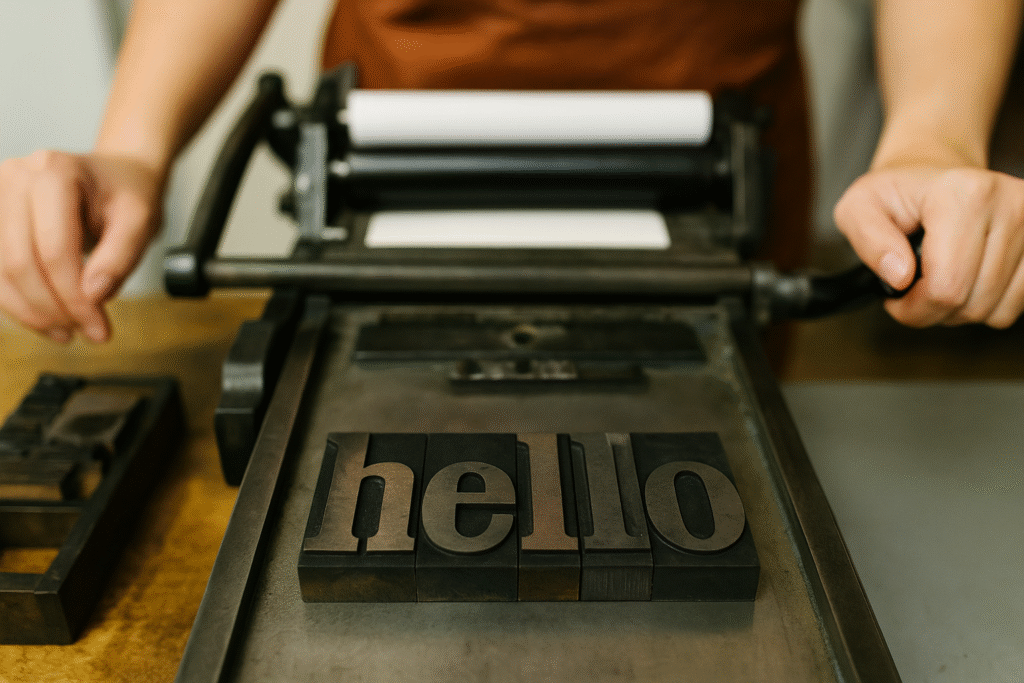
The Art of Letterpress: Crafting with Pressure and Precision”
If you thought typography and DIY crafts only danced together at the occasional sign-making soirée, think again. Today, we’re diving into one of the most visually stunning and tactilely satisfying techniques ever to grace the printed page: letterpress printing. This centuries-old method is equal parts art, engineering, and oddly therapeutic hand-pressing—perfect for crafters who want their words to literally leave a lasting impression.
What is Letterpress?
Let’s set the scene: It’s the 1400s, and Johannes Gutenberg has just revolutionized the world with movable type. Fast forward a few centuries, and his legacy is living its best life in your home craft studio.
Letterpress printing involves inking a raised surface—typically metal or wood type—and pressing it firmly into paper. Unlike modern digital prints that sit on top of the page, letterpress leaves a physical impression you can see and feel. It’s essentially the artisanal sourdough of the typography world.
Why It’s Perfect for DIY Crafters
Letterpress is the ideal playground for crafty typography lovers. Whether you’re designing wedding invitations, business cards, custom stationery, or just trying to elevate your journaling game, it allows for a blend of aesthetics, technique, and personalization. Plus, the crisp lines and subtle indentations make your work look ultra-professional, even if you’re wearing glitter-covered pajamas.
And yes, it’s as satisfying as popping bubble wrap—only prettier.
Essential Materials You’ll Need
Before you get elbow-deep in ink, here’s a quick checklist to prepare your letterpress toolkit:
• Printing press: No need to rob a museum! You can start small with tabletop presses like the L Letterpress or a secondhand Adana.
• Printing plates or movable type: These can be bought pre-designed, custom ordered, or DIY’d using photopolymer or linoleum blocks.
• Ink: Letterpress ink is oil-based or rubber-based and made specifically to avoid flooding delicate lines.
• Brayer or inking roller: For smooth, even ink application.
• High-quality paper: Thick, cotton-based paper like Crane Lettra is ideal for getting that luxurious impression.
• Cleaning supplies: Letterpress is not a tidy sport. Ink gets everywhere, so mineral spirits, rags, and gloves are your friends.
Optional (but fun):
• Typography templates or stencil guides if you’re creating your own typefaces.
• Gold foil or embossing powders for extra razzle-dazzle.
Step-by-Step: Your First DIY Letterpress Print
1. Design Your Layout
Start with a simple phrase or a favorite quote. Choose a classic serif font for timeless elegance, or go bold with a custom script for personal flair.
2. Prepare Your Type or Plate
If using movable type, align the letters backward in your press (yes, backwards—it’s like mirror writing for grown-ups). If you’re using a polymer plate, secure it to a base that fits your press.
3. Ink It Up
Apply a small amount of ink to your brayer and roll it until it’s evenly coated. Then, lightly roll the ink over your raised type.
4. Press and Impress
Place your paper in the press, align it carefully, and pull the lever or crank. Voilà! You just made art that literally leaves a mark.
5. Repeat, Refine, and Revel
Creative Typography Meets Craft
Here’s where things get juicy for us font-fanatics. Letterpress lets you experiment with font pairing in a tangible way. Try combining sans-serif headlines with elegant script subtext, or mix bold display fonts with minimalistic body text. It’s not just design—it’s a sensory experience.
Want to level up? Start carving your own type blocks from linoleum or rubber, introducing your unique letterforms into the mix. This hybrid of hand-lettering and relief printing gives you total creative control. Who needs Helvetica when you have Youvetica?
Unique Fact of the Day:
Did you know that early printers using letterpress would store their type in wooden drawers? Capital letters were stored in the upper drawer, while lowercase letters were in the lower one. Yep, that’s exactly where the terms “uppercase” and “lowercase” come from!
Mind. Blown. (Or should we say… inked?)
Tips for Next-Level Letterpress
• Use blind impressions: Press the plate without ink for a subtle, elegant embossed look.
• Play with gradients: Try a split fountain inking technique to create color fades.
• Layer it up: Combine letterpress with watercolor washes or calligraphy overlays.
Letterpress printing is more than just a retro revival—it’s a tactile tribute to typography’s rich heritage. With each impression, you’re not just crafting a design, you’re celebrating centuries of print culture. And let’s be real: anything that lets us mash art, history, and the irresistible smell of ink into one creative afternoon? That’s peak DIY power.